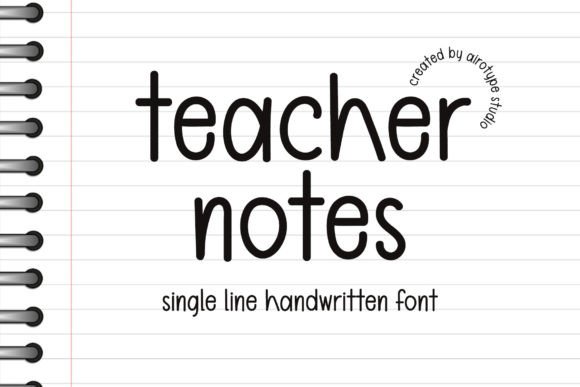
Introducing Teacher Notes Font, the ultimate script font designed to elevate your creative projects with its captivating simplicity and playful charm. Created by the talented airotype, this font is a must-have for anyone seeking a unique and eye-catching addition to their collection.
With its simple handwritten style and single line design, Teacher Notes Font exudes a casual and fun vibe that is perfect for a wide range of designs. Whether you're working on back to school projects, birthday invitations, summer-themed designs, or even crafting and sticker creations, this font will add a cute and playful touch that is sure to impress.
Imagine the joy and excitement that this font will bring to your designs. Its charming simplicity will instantly captivate your audience and leave a lasting impression. With Teacher Notes Font, you have the power to create stunning farmhouse signs that will transform any space into a cozy and inviting haven.
But that's not all! This font is incredibly versatile and can be used in numerous ways to bring your ideas to life. Add a touch of whimsy to your t-shirt designs, infuse your sublimation projects with a dose of fun, or create personalized gifts that will make your loved ones smile. The possibilities are endless with Teacher Notes Font.
When you download Teacher Notes Font, you're not just getting a font – you're gaining access to a world of creativity and inspiration. Let your imagination run wild as you explore the endless possibilities that this font offers. From DIY projects to professional designs, this font will be your faithful companion every step of the way.